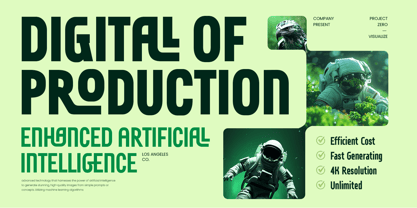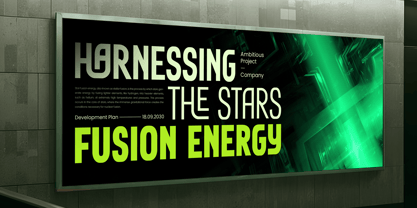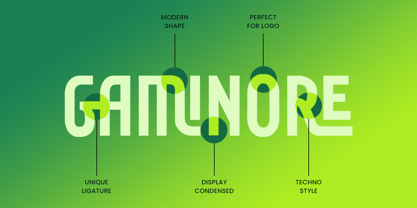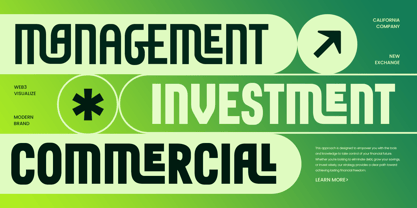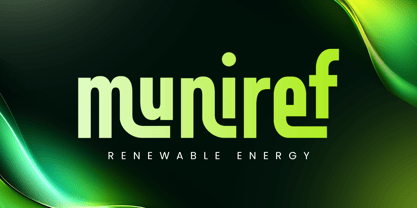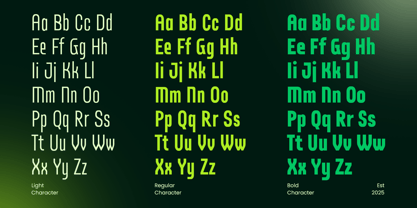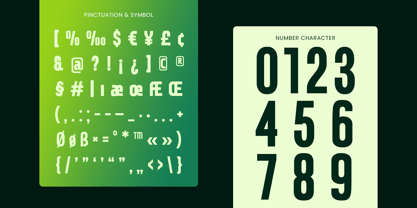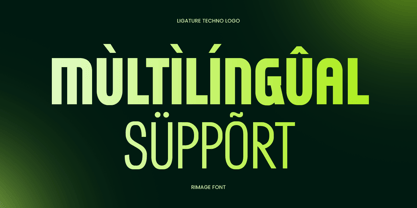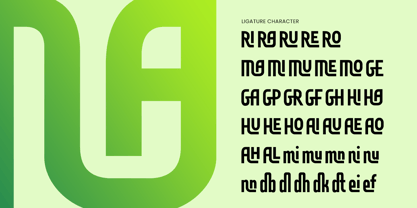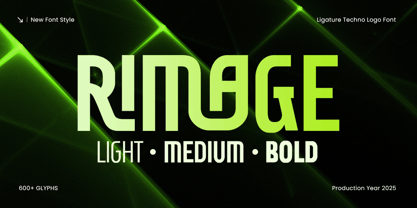
RIMAGE is a ligature techno logo font crafted for forward-thinking brands and creators. With its futuristic geometry, sharp precision, and unique ligature combinations, this typeface delivers a modern digital aesthetic ideal for technology companies, software products, gaming identities, and innovative corporate branding.
Each character in RIMAGE is built with clean structure and dynamic styling, allowing designers to create standout logos and high-tech visual systems effortlessly. The custom ligatures add uniqueness and motion, making every wordmark feel advanced, memorable, and distinct.
Perfect for UI/UX design, app branding, posters, product packaging, and sci-fi themed visuals, RIMAGE brings clarity, intelligence, and a forward-leaning attitude to any design environment — both print and digital.
Font Features
Futuristic geometric typeface with unique ligatures
Perfect for tech startups, apps, gaming, and digital branding
Sleek and minimal construction for modern logo design
Strong visual identity for sci-fi and high-tech concepts
Uppercase, lowercase, numerals, and punctuation included